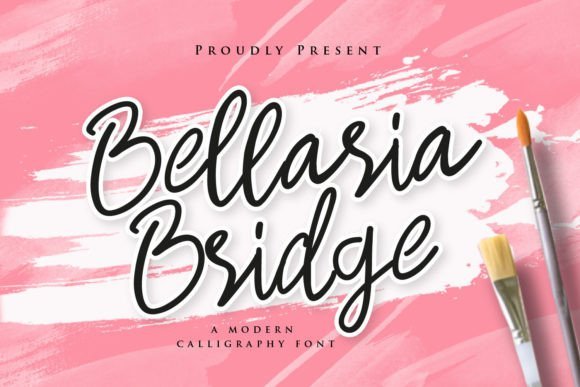
Bellaria Bridge Font: Elevate Your Design with Handwritten Elegance
Remember the last time you stumbled upon a beautifully handwritten quote or a bespoke invitation that made your heart skip a beat? That’s the magic of a well-crafted handwritten font. For designers seeking to infuse their projects with a touch of personality and warmth, the Bellaria Bridge Font is an absolute gem. This exquisite Handwritten Script font is designed to elevate your branding, promotional ads, quotes, merchandise, and social media designs to new heights.
With its unique, flowing lines and elegant flair, the Bellaria Bridge Font is an invaluable addition to any designer’s toolkit. Whether you’re working on a special event, a product launch, or a personal project, this font will add a touch of sophistication and whimsy to your creations. By incorporating the Bellaria Bridge Font into your design arsenal, you’ll be able to take your work to a whole new level of beauty and sophistication.
Bellaria Bridge Font Key Features
- Font Family: Bellaria Bridge, Bellaria Bridge Italic, Bellaria Bridge Bold, Bellaria Bridge Bold Italic
- Unique Characteristics: Elegant, modern script font with a touch of sophistication and playfulness; ideal for wedding invitations, event branding, and high-end packaging design
Bellaria Bridge Font Review
Overall, I found the Bellaria Bridge Font to be a visually appealing and unique choice for typography. It’s got a certain charm to it that makes it stand out from more traditional fonts.
- Unique aesthetic: The Bellaria Bridge Font has a distinctive, handwritten feel that’s perfect for adding a touch of personality to your designs.
- Good for headings: The font is particularly well-suited for headings and titles, where its bold, cursive style can really make an impact.
- High legibility: Despite its cursive nature, the font is surprisingly easy to read, making it a good choice for body text as well.
- Not ideal for body text: While the font is legible, it may not be the best choice for large blocks of text, where its cursive style can become overwhelming.
- Limited versatility: The font’s unique style may limit its use in certain contexts, such as in formal or technical documents.
Overall, I think the Bellaria Bridge Font is a great choice for designers looking to add some personality to their work. While it may not be suitable for every project, its unique aesthetic and high legibility make it a valuable addition to any font collection.
Tips for Getting the Most Out of Bellaria Bridge Font
For best results, use Bellaria Bridge Font in headings and titles to create a clear visual hierarchy.
Additionally, pair the font with a clean and minimalist design to showcase its elegant and refined features.
Bellaria Bridge Font is suitable for a variety of design projects, including:
– Luxury branding and packaging
– Fine art and creative portfolios
– High-end business cards and letterheads
Alternative Fonts to Bellaria Bridge Font
The Great Vibes Font is a beautiful, elegant script font. It’s ideal for creating a romantic or vintage feel in your designs. When to use: Wedding invitations, restaurant menus, or any project that requires a touch of elegance.
Comparison to Bellaria Bridge Font: Great Vibes Font has a more delicate and intricate design compared to Bellaria Bridge Font, which has a more modern and clean look. Great Vibes Font is also more suitable for handwritten-style text.
The Alex Brush Font is a beautiful, handwritten script font with a touch of elegance and sophistication. It’s ideal for creating a high-end or luxury feel in your designs. When to use: Luxury brand logos, high-end product packaging, or any project that requires a touch of sophistication.